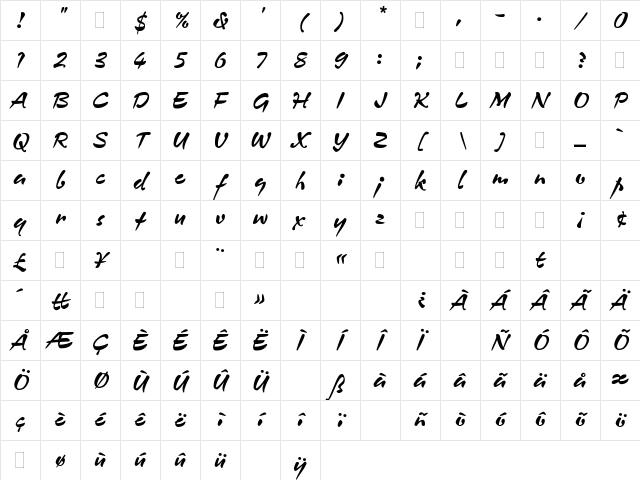
ZennorPlain Regular
Design Context for ZennorPlain
ZennorPlain is a composed and adaptable typeface that performs quietly and consistently across a wide range of design contexts.